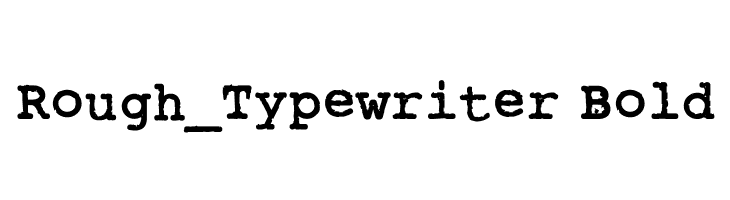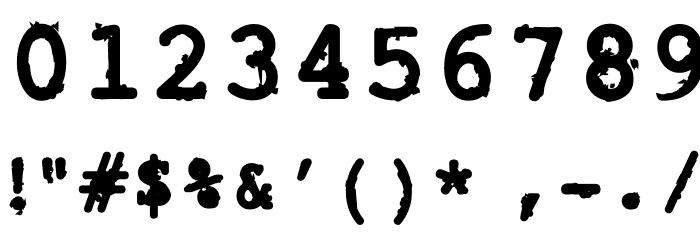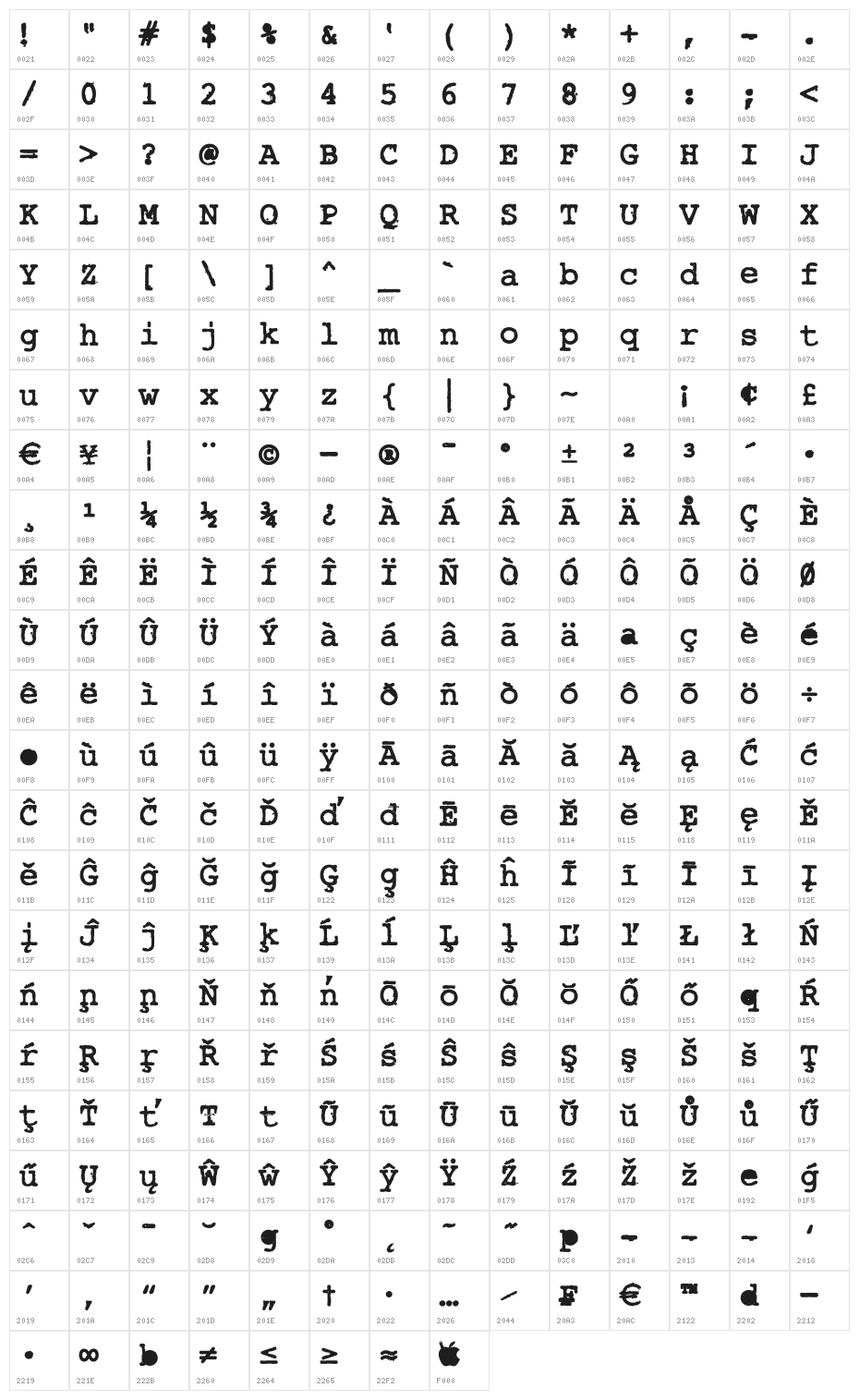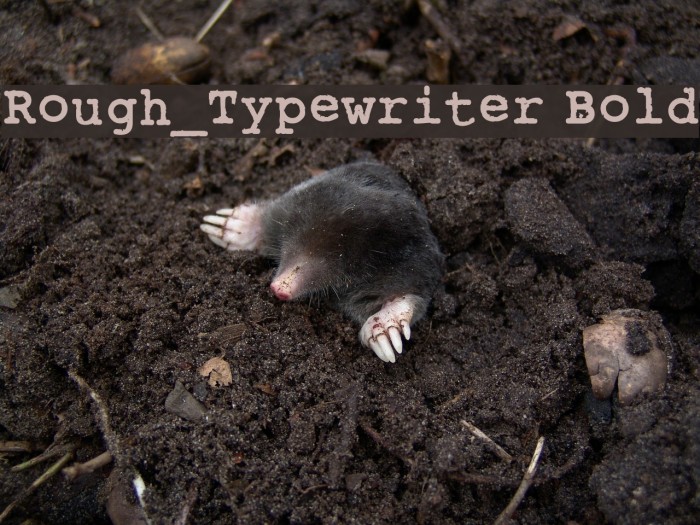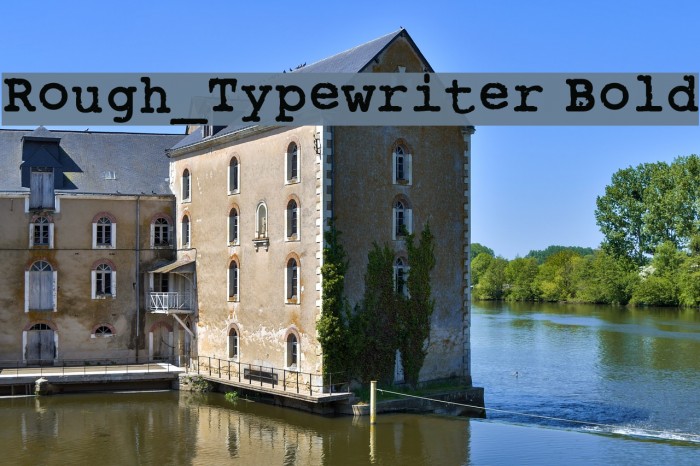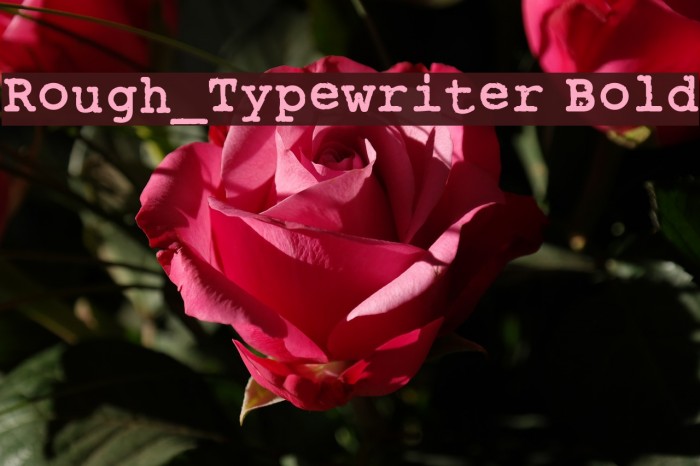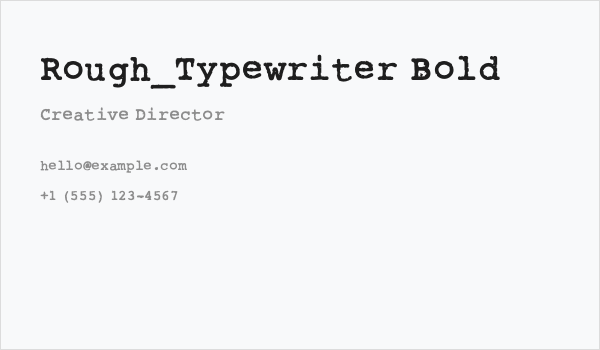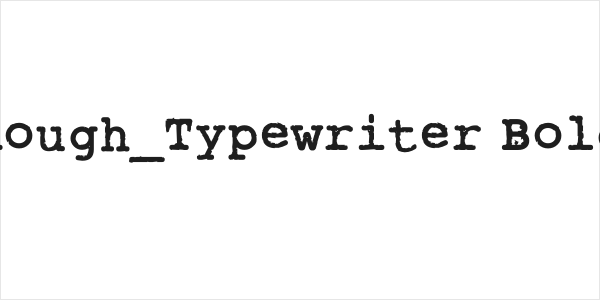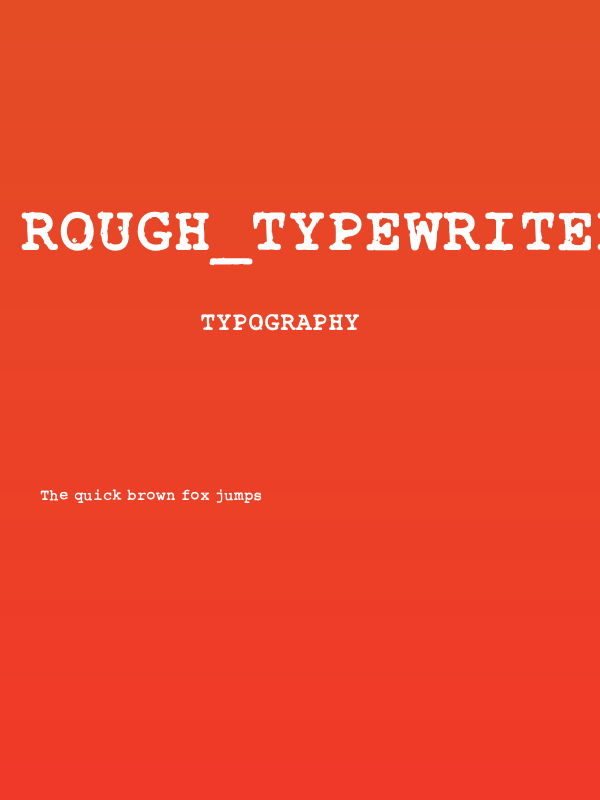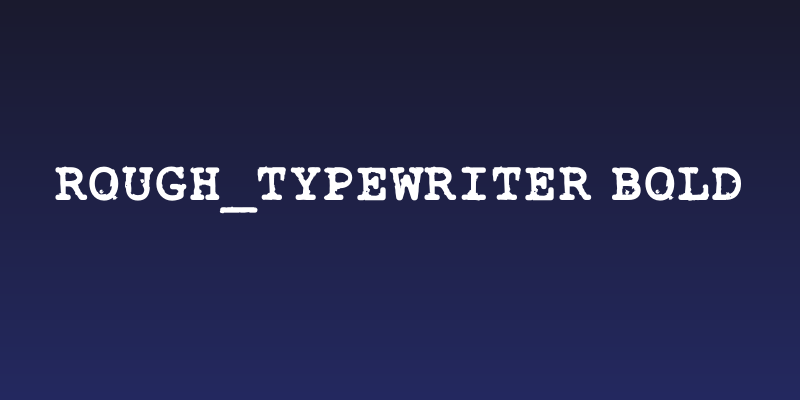
Rough_Typewriter Bold Font
Rough_Typewriter Bold Description
This font exudes a vintage, mechanical feel reminiscent of old typewriters. Each character is bold and slightly irregular, giving it a rough, textured appearance that adds to its charm. The uppercase and lowercase letters maintain a consistent style, with rounded edges and a slightly distressed look. Numbers and special characters follow the same design, ensuring uniformity across all glyphs. The font's boldness and unique texture make it stand out, perfect for projects that require a touch of nostalgia or a handcrafted aesthetic.
Overall StyleVintage
Proposed ProjectsIdeal for retro-themed designs, posters, book covers, and branding that seeks a vintage or handcrafted look.